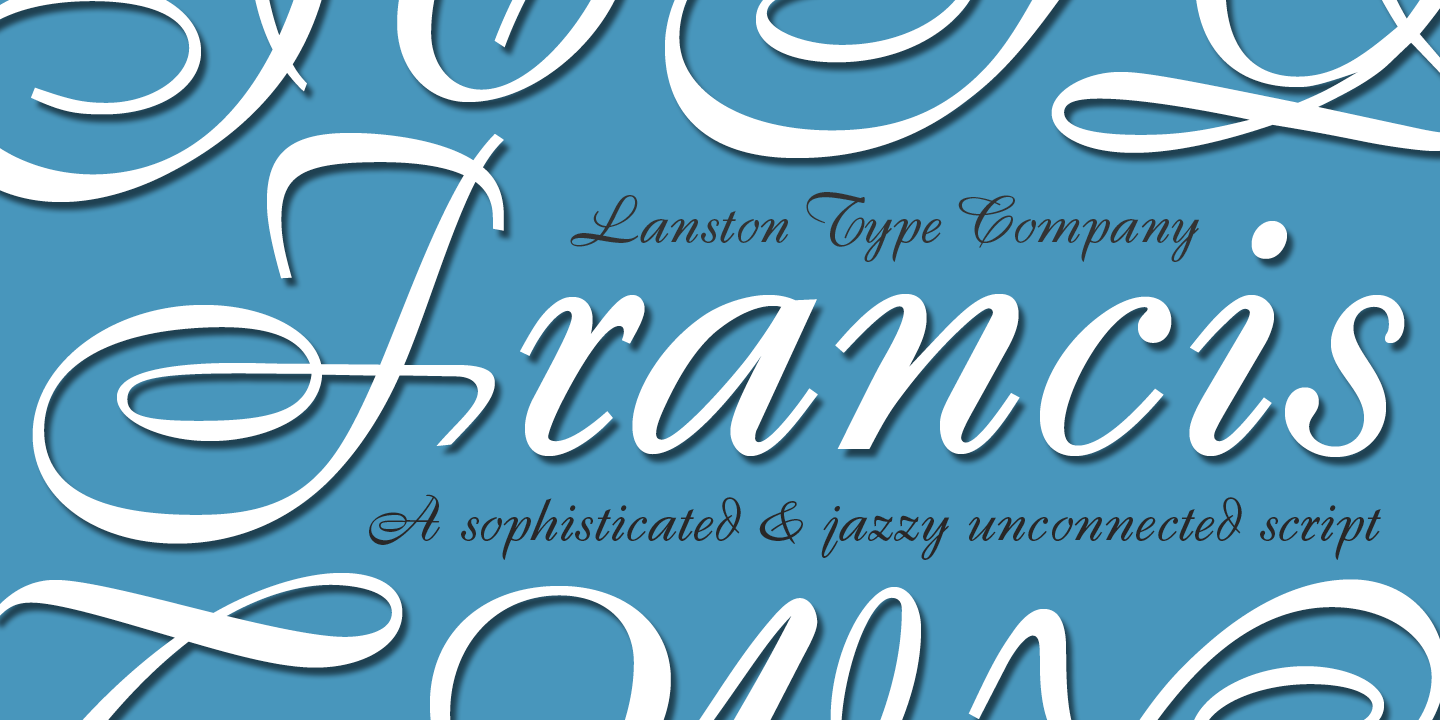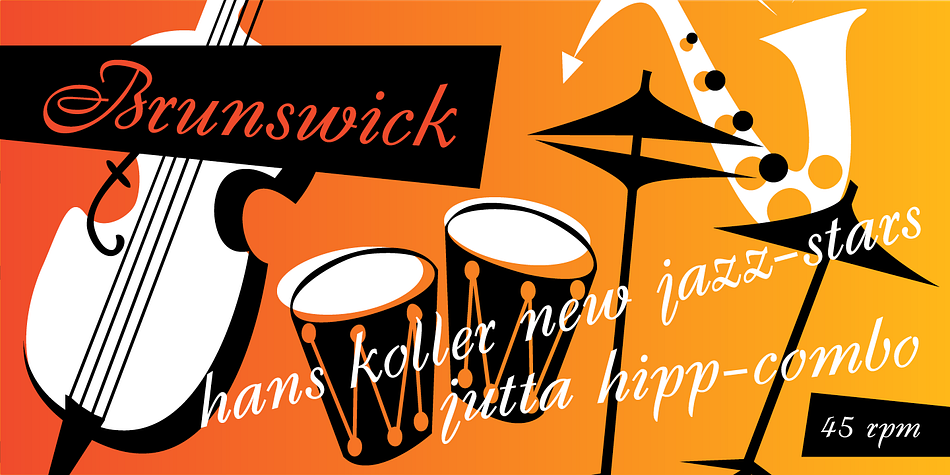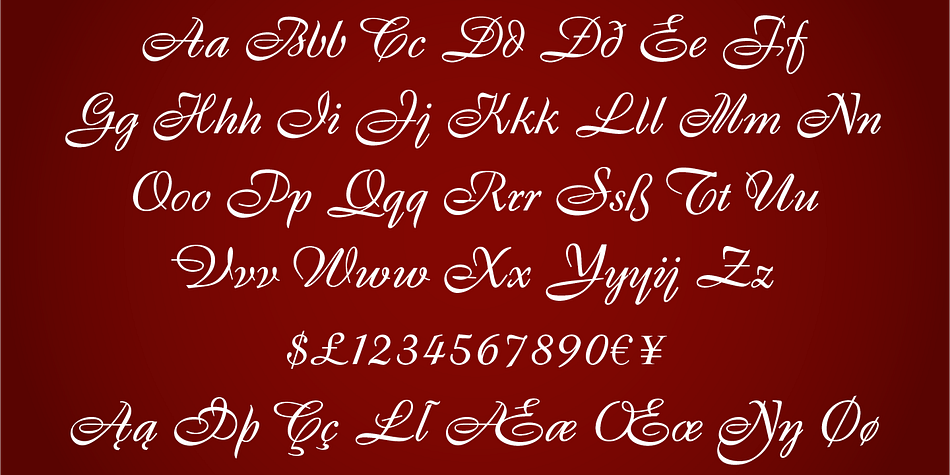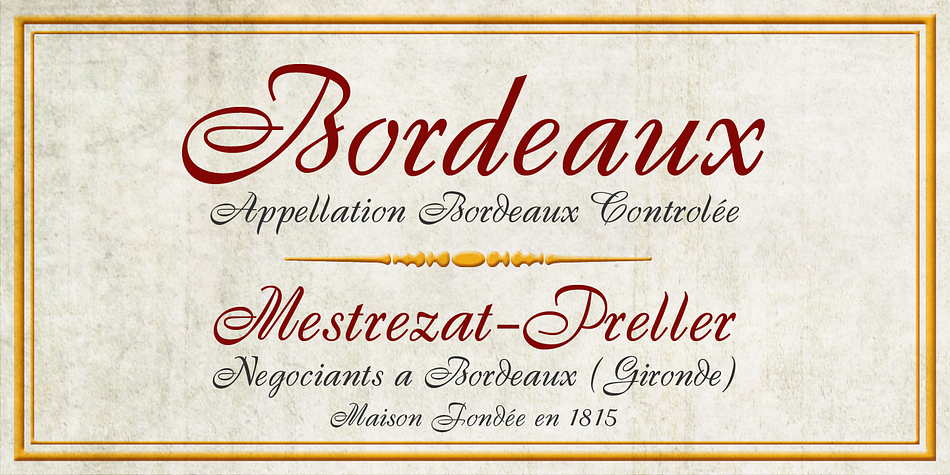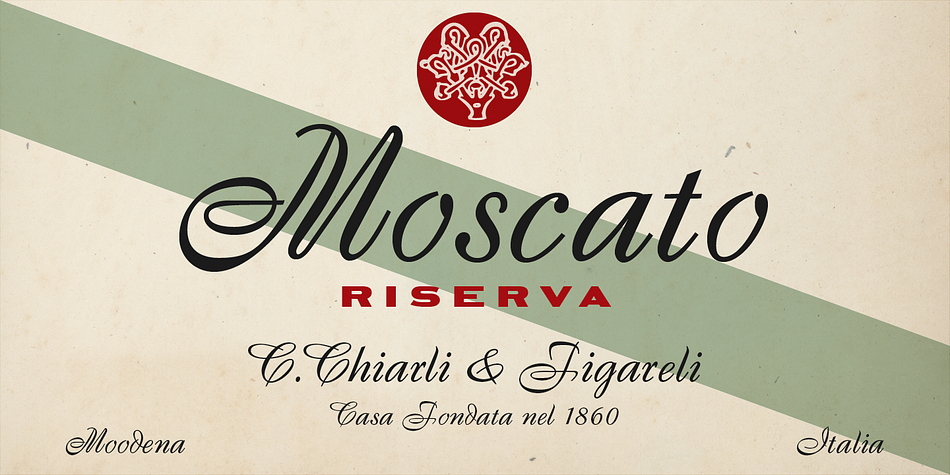
LTC Francis
Designed by Lanston Drawing Office, LTC Francis is a script font published by P22 Type Foundry.
Francis is a design previously offered by the Lanston Type Co. in the early 1990s. It is a revival of a 1955 Günther Gerhard Lange design, but with a heavier overall weight. Coming out of retirement, it has been fully reworked and refined with elegant curves and an expanded character set. This font works well at small sizes and larger display sizes for everything from wine labels to personal stationery. This type evokes the elegant sophistcation of the Jazz age and pairs well with a Martini and a fine selection of charcuterie.